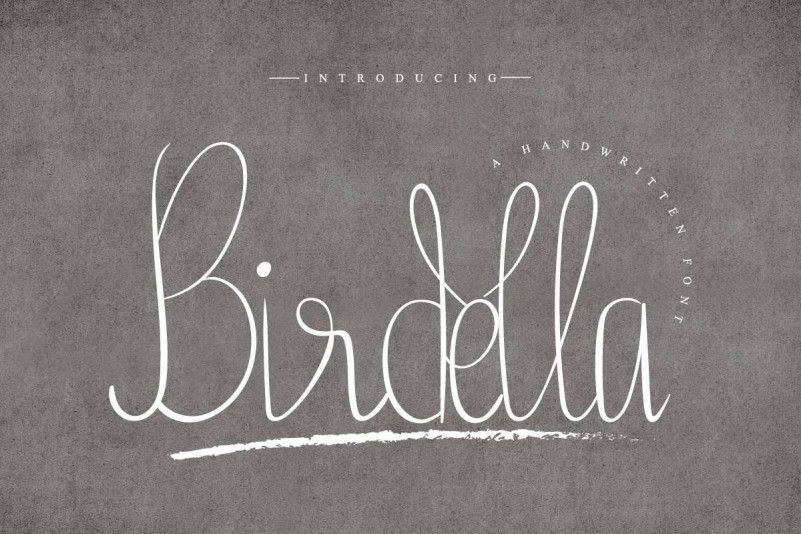
Birdella Calligraphy Font
The Birdella Font will be the perfect addition to aid you in your journey to be who you really are. Let the world see you and your beauty, bring it out through your handiwork and give your viewers a new perspective!
Fully realize your boldness and show your lavish side with the Birdella Script. Connect with your audience with a little perspective as these cursive letters connect each other in a beautiful manner. After all, these days, branding is all about making a connection with your audience, right?